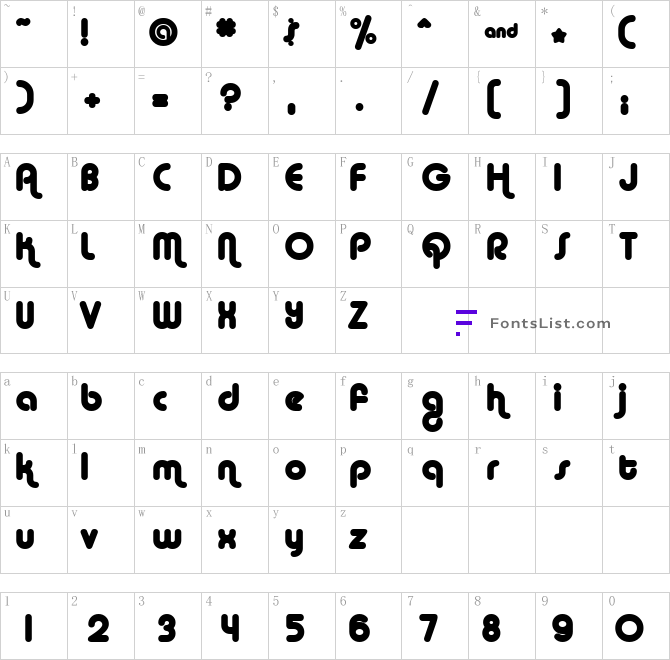
- Font Name:Alba Matter
Alba-Matter.ttf is a very beautiful artistic font, Alba-Matter.ttf is widely used in the design and printing of various books and pictures,Alba-Matter.ttf has a strong visual impact,Alba-Matter.ttf is a commonly used font in newspapers, magazines and books, and is used in posters, e-commerce Poster design, store design, logo design, font design and other fields.Alba-Matter.